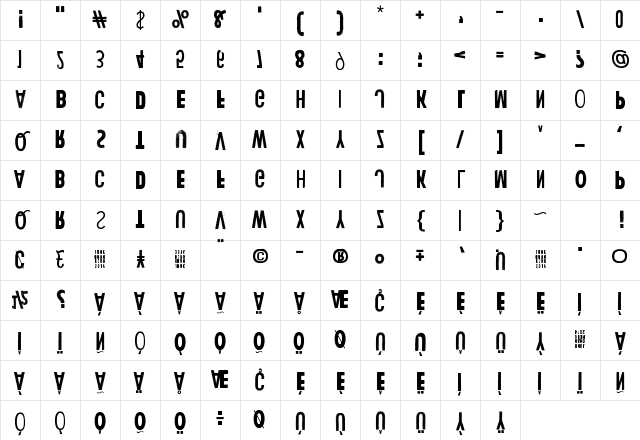
!PaulMaul Bold Free Font
!PaulMaul Bold
Foundry: !Exclamachine
Designer: Choz Cunningham
Design Context for !PaulMaul
!PaulMaul is a composed and adaptable typeface that performs quietly and consistently across a wide range of design contexts. Its bold stroke weight gives it real presence on the page.